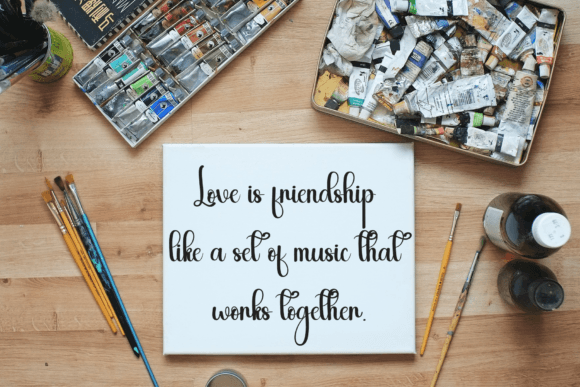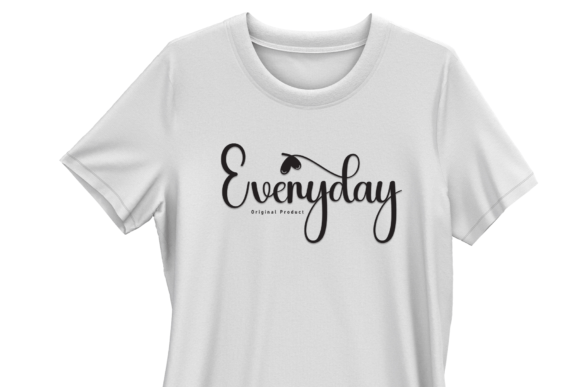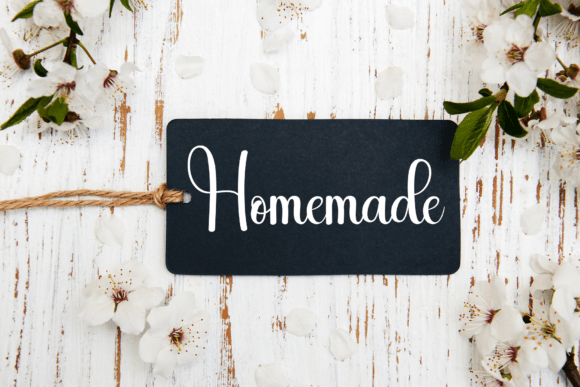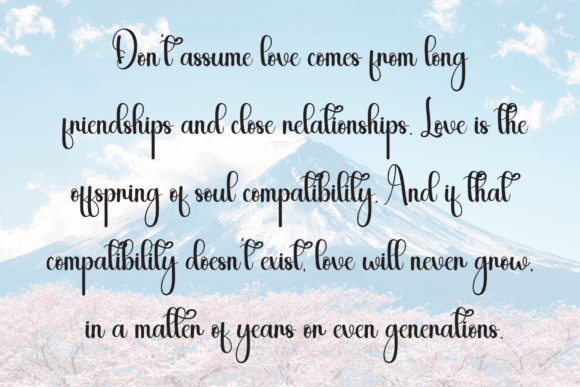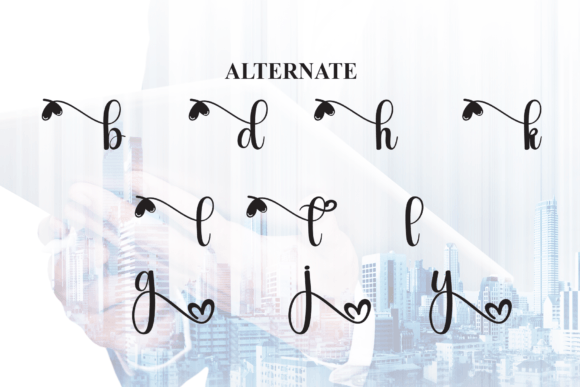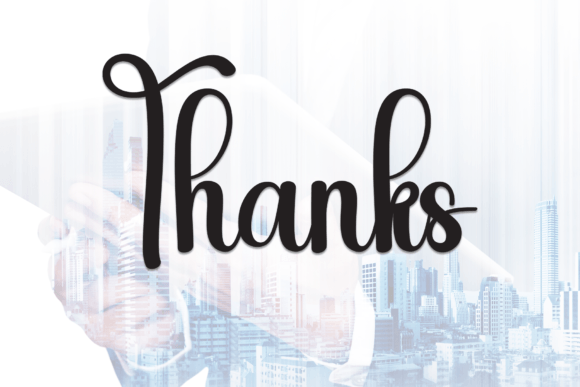
Introducing the Delightful Digital Font: Adding a Touch of Whimsy to Your Designs
Are you tired of using the same old fonts in your designs? Look no further! We’re excited to introduce a delightful and inviting handwritten display font that’s sure to add a touch of whimsy to your projects. This charming font exudes both sweetness and playful energy, making it a perfect choice for creatively crafting wedding invitations, greeting cards, or any design looking for a dash of youthful joie de vivre.
The Perfect Blend of Charm and Playfulness
This endearing font is designed to captivate the eye and heart with its genuine charm. Its playful and carefree nature makes it an ideal choice for designers and crafters who want to add a personal touch to their work. Whether you’re creating wedding invitations, birthday cards, or social media graphics, this font is sure to bring a smile to your audience’s faces.
The possibilities are endless with this delightful digital font. Here are a few ideas to get you started:
- Wedding Invitations: Create beautiful and unique wedding invitations that set the tone for a joyful and celebratory occasion.
- Greeting Cards: Add a personal touch to your greeting cards, making them stand out from the crowd.
- Social Media Graphics: Use this font to create engaging and shareable social media graphics that showcase your brand’s personality.
- Party Decorations: Create custom party decorations, such as banners and garlands, that add a touch of whimsy to any celebration.
Why Choose This Digital Font?
So, what sets this digital font apart from others? Here are a few reasons why designers and crafters love it:
- Unique and Handwritten: This font is carefully crafted to mimic the look and feel of handwritten text, giving your designs a personal and authentic touch.
- Easy to Read: Despite its playful nature, this font is easy to read, making it perfect for use in a variety of design applications.
- Versatile: This font can be used in a range of design contexts, from formal to informal, and is suitable for both digital and print applications.
Tips and Tricks for Working with the Digital Font
Here are a few tips and tricks to help you get the most out of this delightful digital font:
- Experiment with Font Sizes: Play around with different font sizes to create visual interest and hierarchy in your designs.
- Pair with Other Fonts: Try pairing this font with other fonts to create a unique and eye-catching combination.
- Use in Combination with Images: Use this font in combination with images to add an extra layer of meaning and context to your designs.